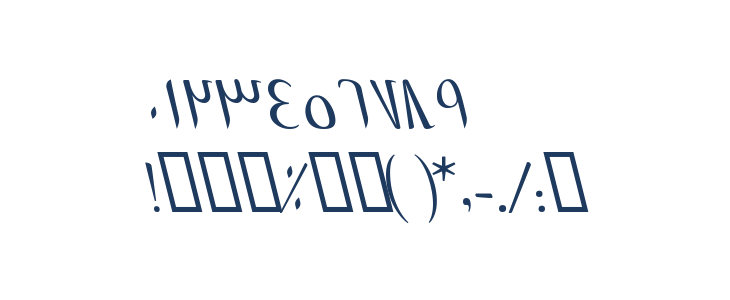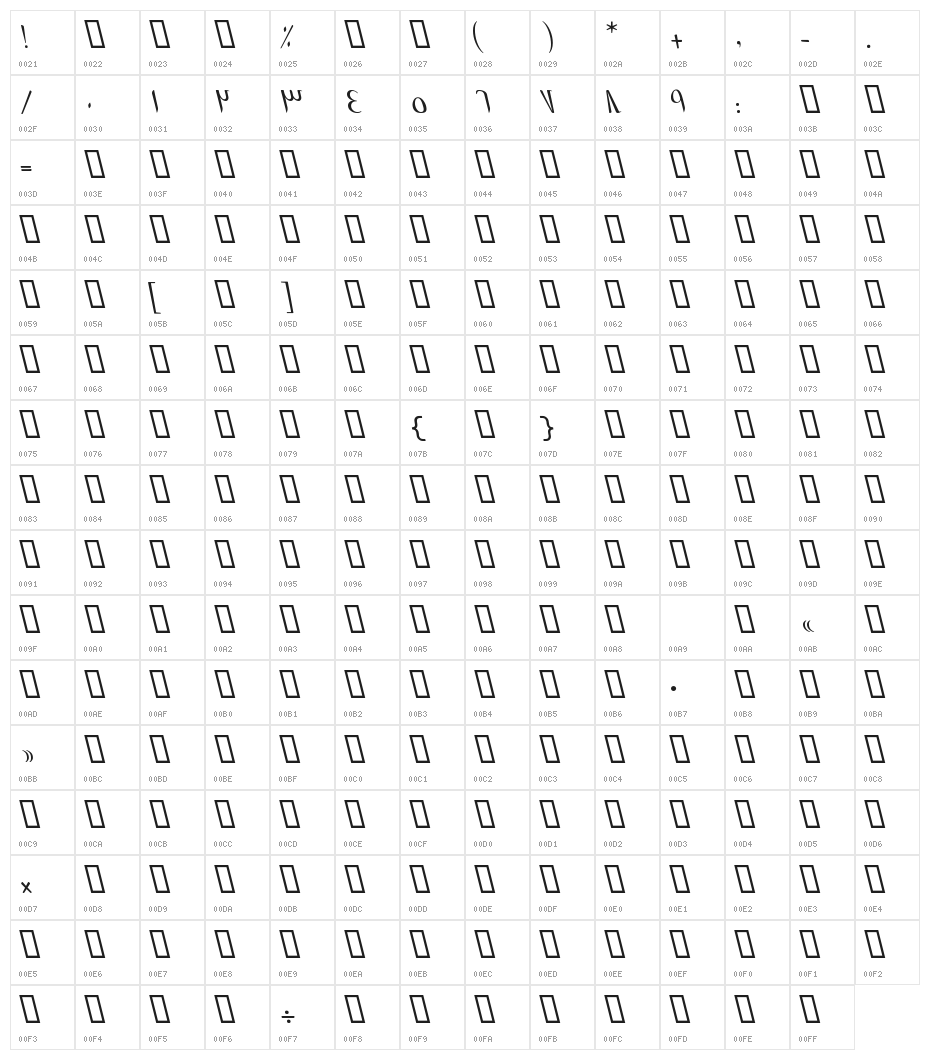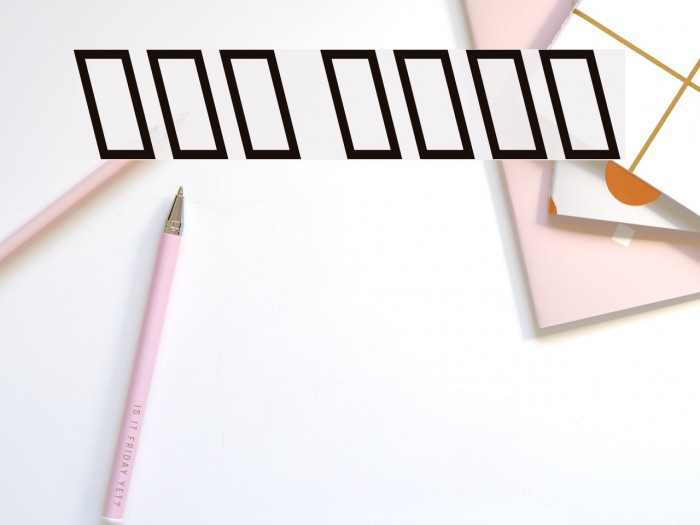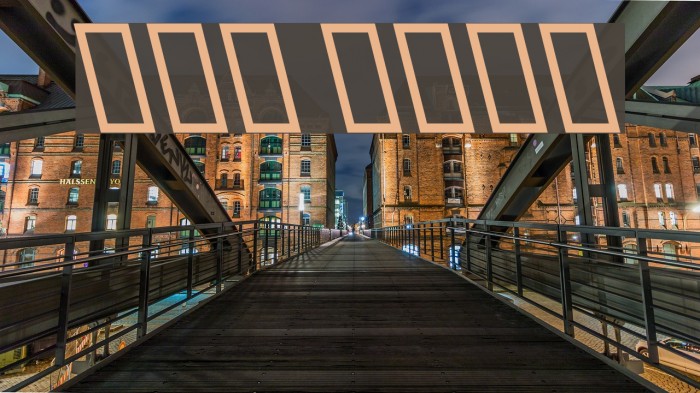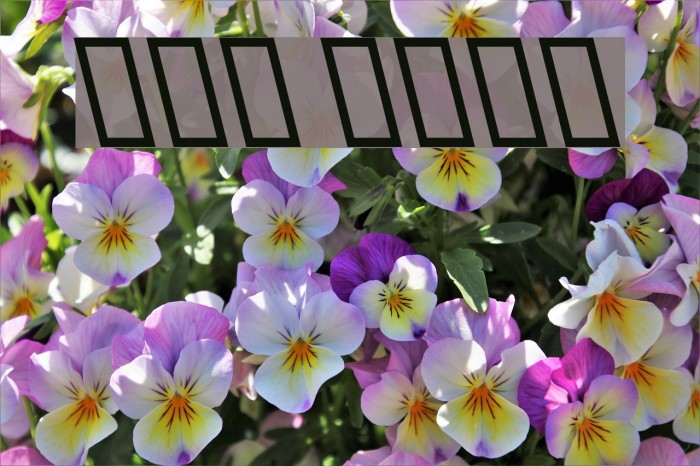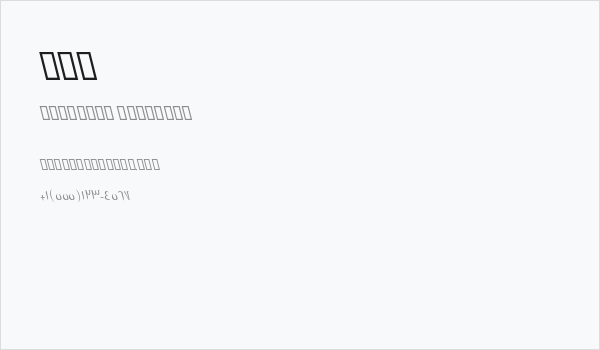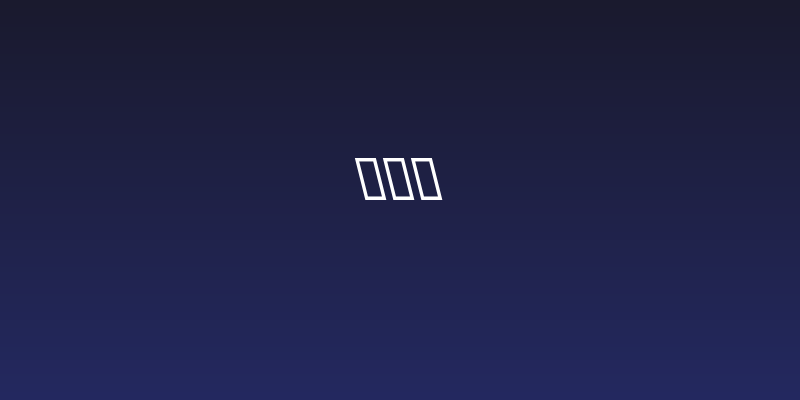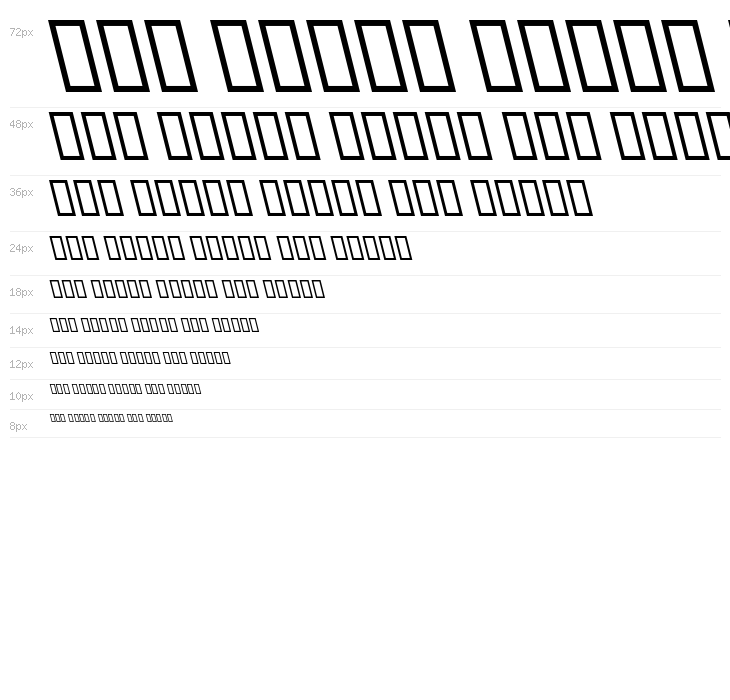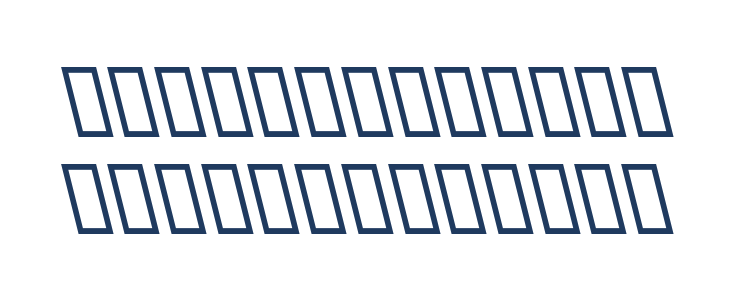
Toy Font
Toy Description
This font features a playful and whimsical design, characterized by its slanted, italicized letters that give a sense of motion and energy. The strokes are moderately thick, providing a medium contrast that enhances readability while maintaining a fun and informal appearance. The characters are slightly condensed, which adds to the dynamic feel of the font. The numbers and special characters follow the same lively style, making it suitable for creative and engaging projects.